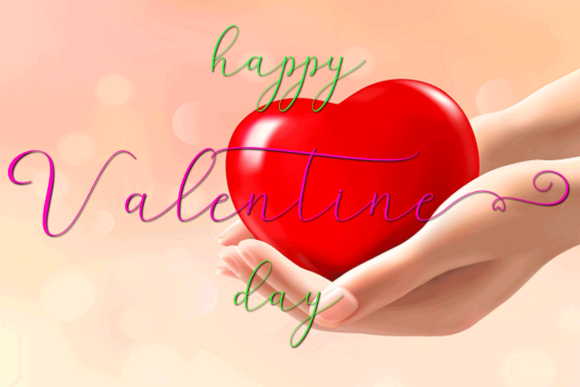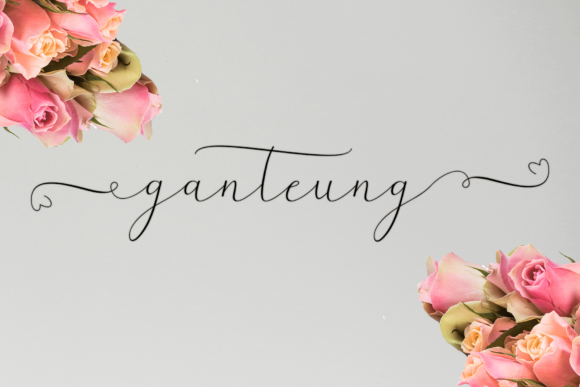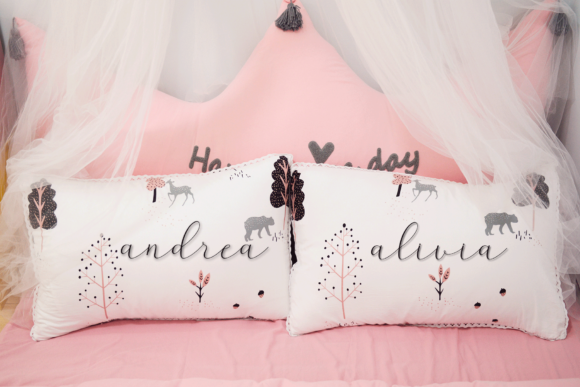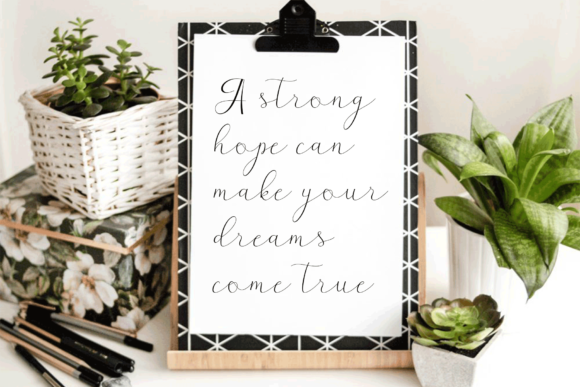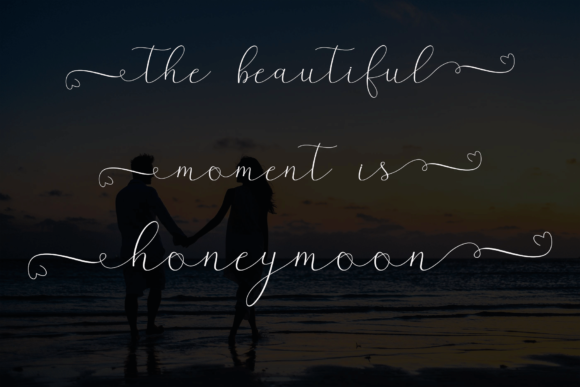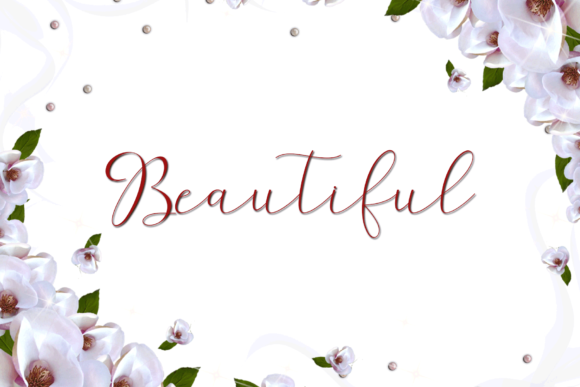
Banteuka Font: Unleash Your Creativity with Elegant Script Experience
In the world of typography, fonts play a crucial role in conveying emotions, setting tone, and creating visual impact. For designers, crafters, and creative enthusiasts, finding the right font can be a daunting task. However, if you’re looking for a script font that delivers an outstanding experience, look no further than Banteuka Font. This stunning font is designed to ignite your creativity, offering a plethora of gorgeous swashes and alternates that will elevate your designs to the next level.
The Banteuka Font Advantage
Banteuka Font is a script font that boasts an elegant and sophisticated style, perfect for a wide range of design projects. Whether you’re working on a logo, branding materials, social media graphics, or craft projects, this font is sure to impress. Its unique features include:
- Gorgeous Swashes: Banteuka Font comes with a variety of swashes that add a touch of elegance and flair to your designs. These swashes can be used to create stunning titles, headings, and emphasis.
- Alternates: The font also features a range of alternates, providing you with flexibility and versatility in your designs. You can mix and match different alternates to create a unique look that suits your project’s tone and style.
- Script Experience: Banteuka Font delivers an outstanding script experience, making it perfect for designs that require a personal touch. Its flowing script style adds a touch of sophistication and refinement to any project.
What Makes Banteuka Font Stand Out?
In a sea of fonts, Banteuka Font stands out for several reasons:
- Unique Design: Banteuka Font features a distinctive design that sets it apart from other script fonts. Its elegant style and gorgeous swashes make it a standout choice for designers and crafters.
- High-Quality: The font is crafted with high-quality design principles, ensuring that it looks stunning in various sizes and resolutions.
- Versatility: Banteuka Font is versatile and can be used for a wide range of design projects, from logos and branding materials to social media graphics and craft projects.
Who Can Benefit from Banteuka Font?
Banteuka Font is perfect for:
- Designers: Graphic designers, UI/UX designers, and visual designers can use Banteuka Font to add a touch of elegance and sophistication to their designs.
- Crafters: Crafters, makers, and DIY enthusiasts can use Banteuka Font to create stunning craft projects, such as signs, cards, and decorations.
- Social Media Enthusiasts: Social media enthusiasts and influencers can use Banteuka Font to create visually appealing graphics and posts that stand out from the crowd.
Banteuka Font is a stunning script font that delivers an outstanding experience for designers, crafters, and creative enthusiasts. With its gorgeous swashes, alternates, and elegant script style, this font is sure to ignite your creativity and take your designs to the next level. Whether you’re working on a logo, branding materials, social media graphics, or craft projects, Banteuka Font is the perfect choice. So why wait? Download Banteuka Font today and unleash your creativity!